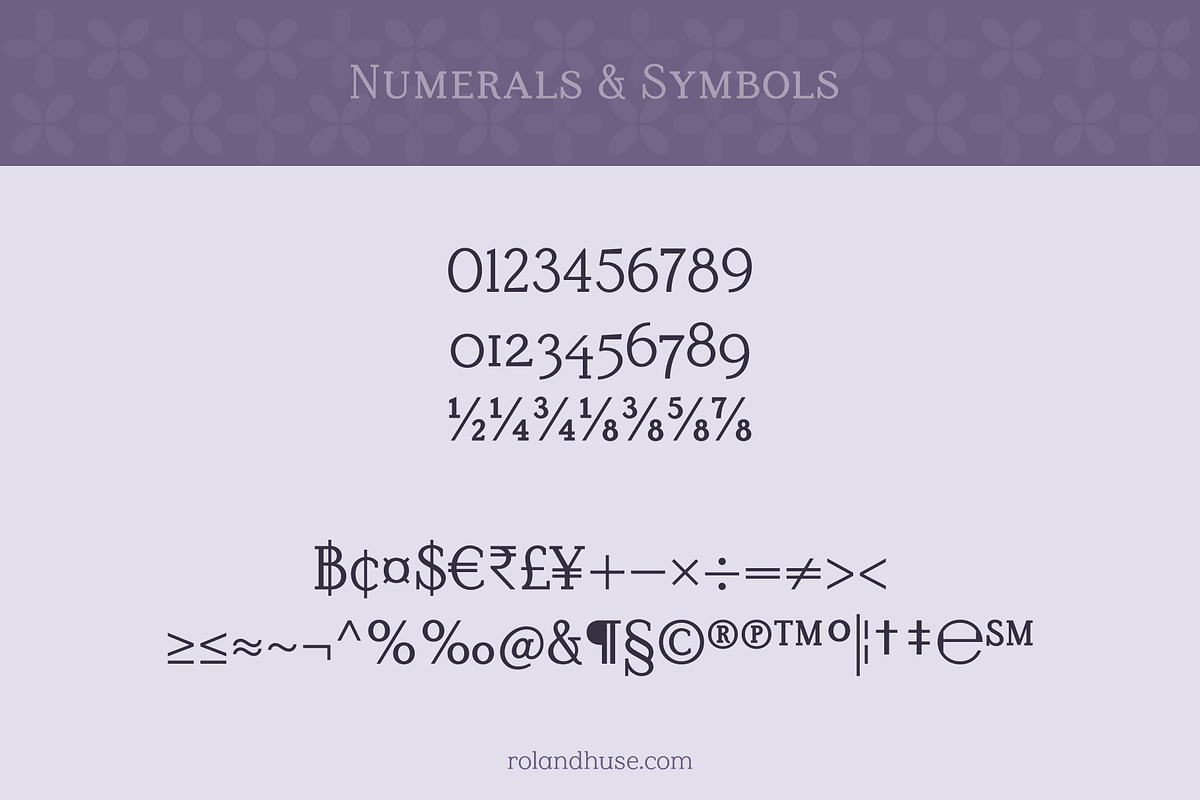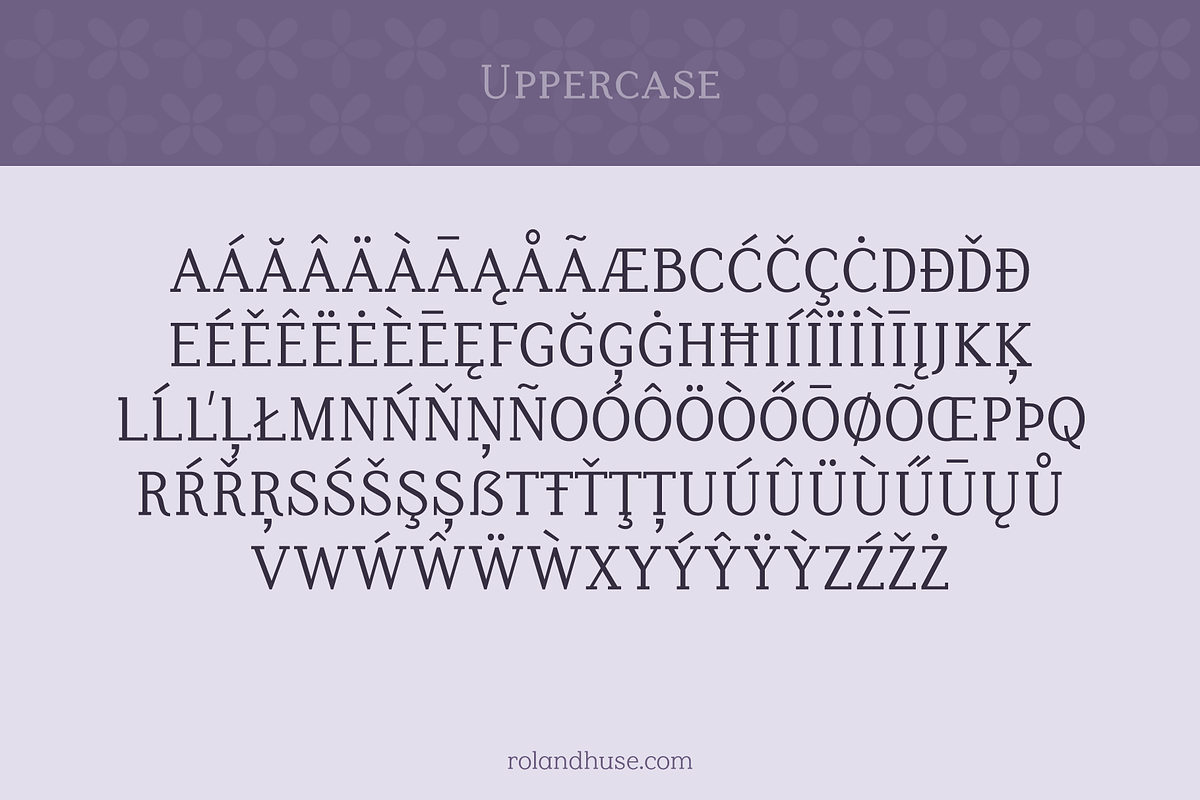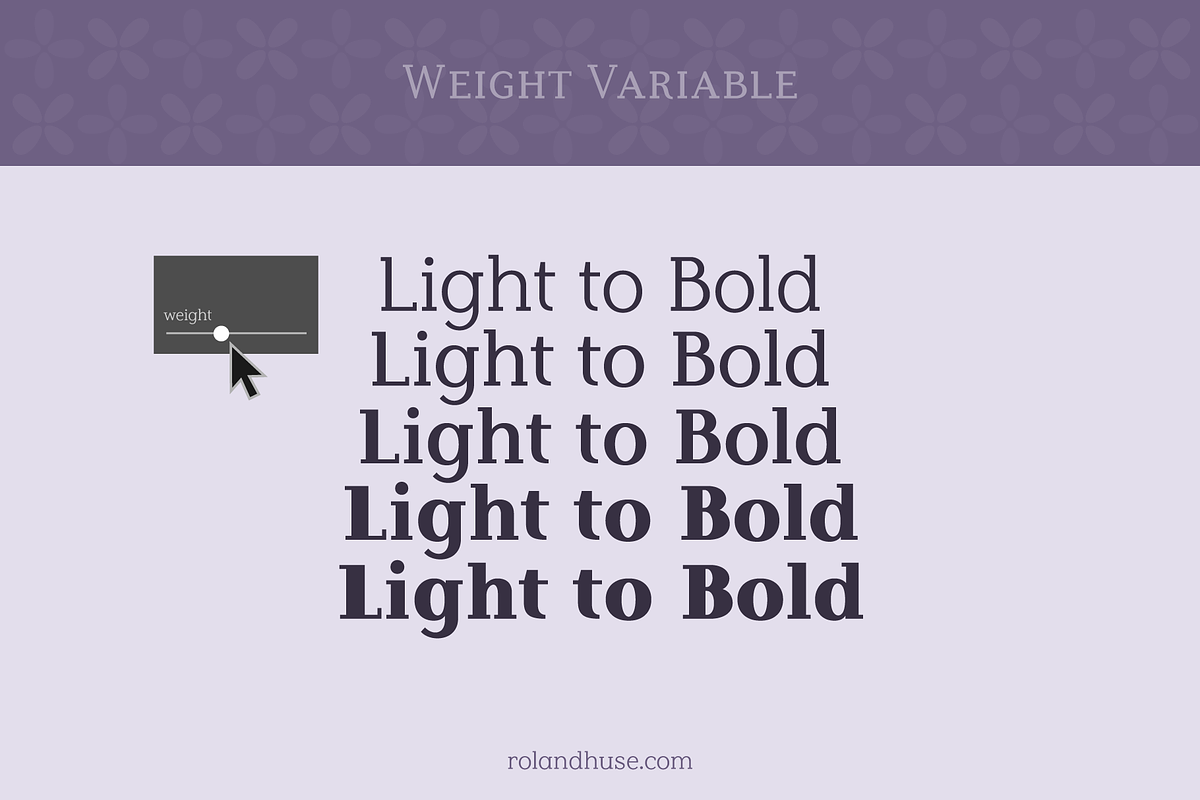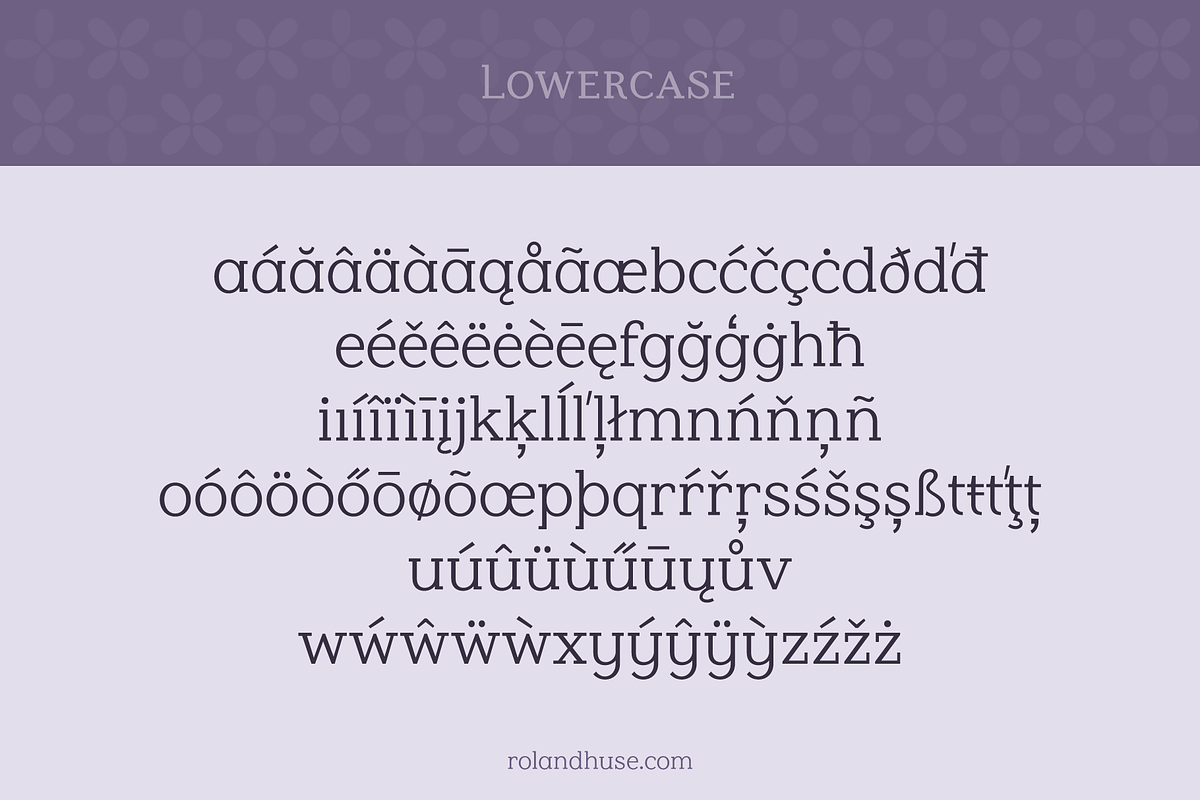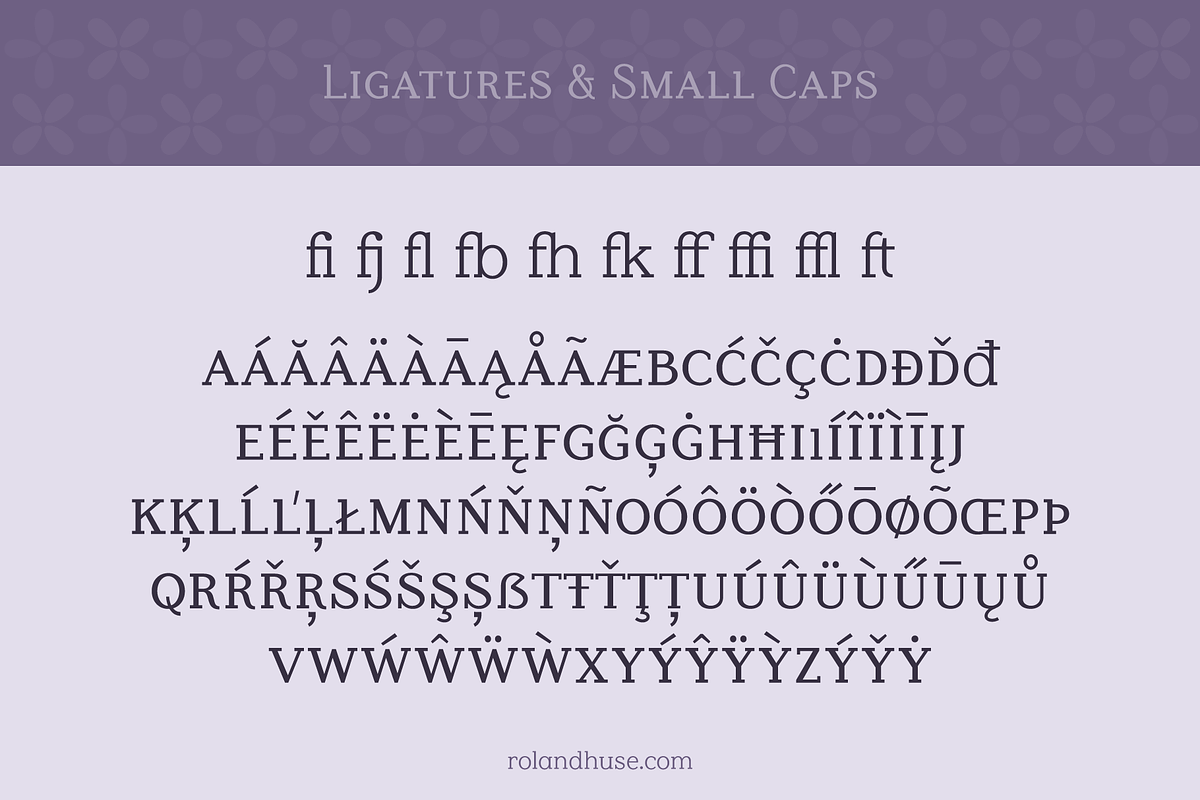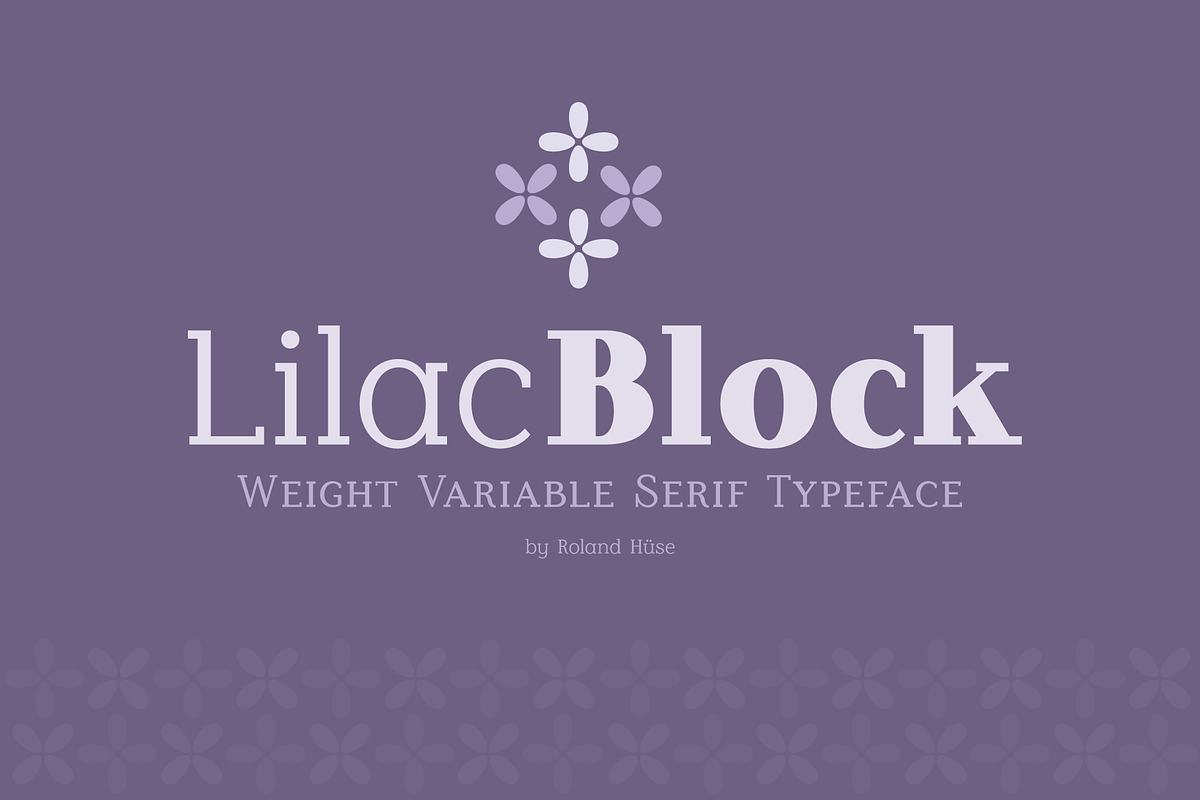
Lilac Block Weight Variable Serif
Lilac Block is a serif typeface that is weight variable from light to bold.
It has a friendly look with high x-height and is great for larger text in light instance the bold looks best in large size. It contains Western, Central and South-Eastern European accented characters and standard ligatures. Please refer to the poster images for full list of characters and symbols.